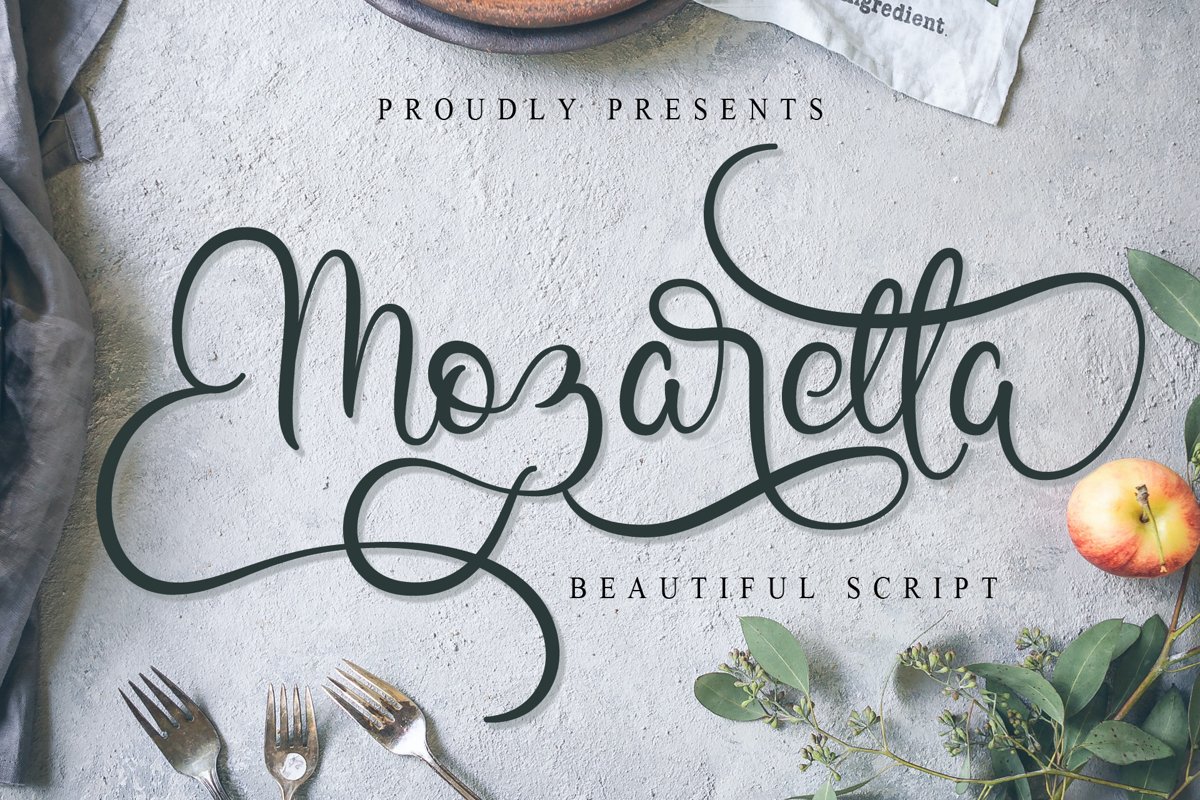
Hello, Introducing our latest product, Mozarella, is a beautiful script font. Mozarella is very beautiful, various kinds of alternate characters that makes perfect when combining any design projects with this font. This font is great for many design projects such as product brand, quotes, clothes, business card, wedding invitation, signature, logos, lettering, headline, etc. Please enjoy this font ! Thanks for visiting and downloading my font. Here are many features in this font : Mozarella otf Mozarella ttf PUA encoded Numerals and Punctuations There are many sophisticated alternate characters. Thank You Have a Nice Day.